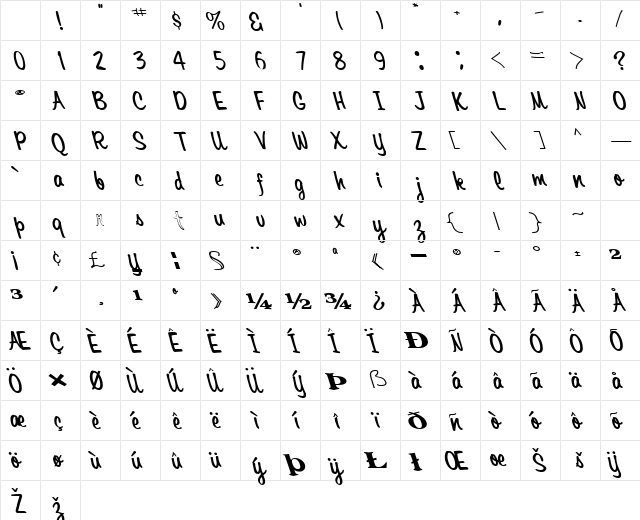
Complete PackAway35 Bold glyph index. Displaying only characters natively supported by PackAway35 Bold font.
PackAway35 is a composed and adaptable typeface that performs quietly and consistently across a wide range of design contexts. Its bold stroke weight gives it real presence on the page.